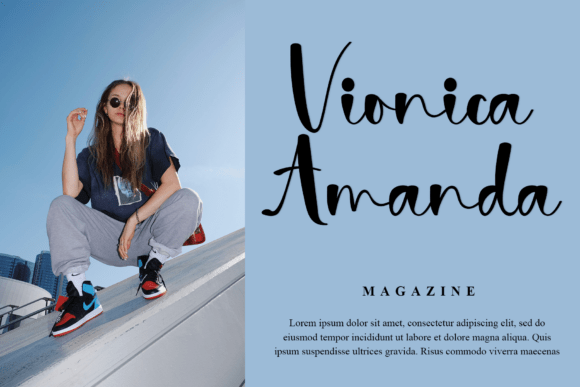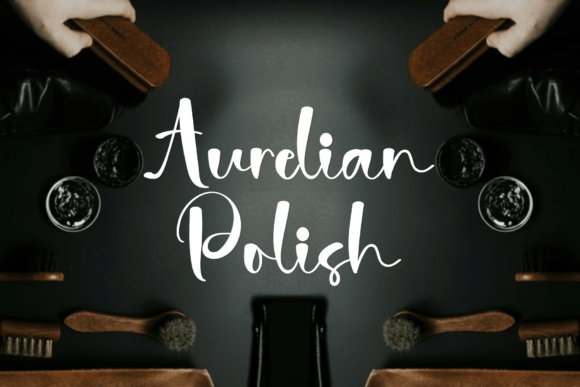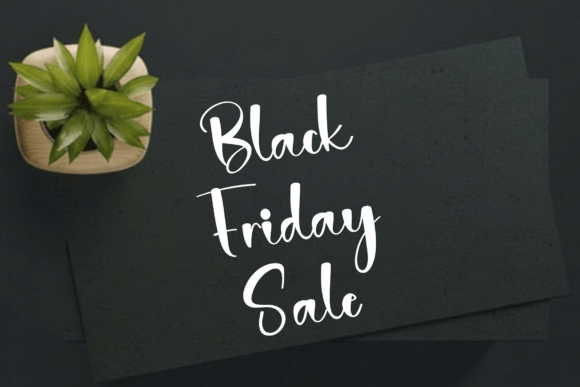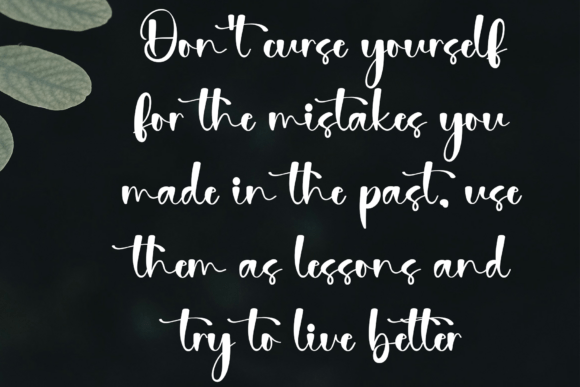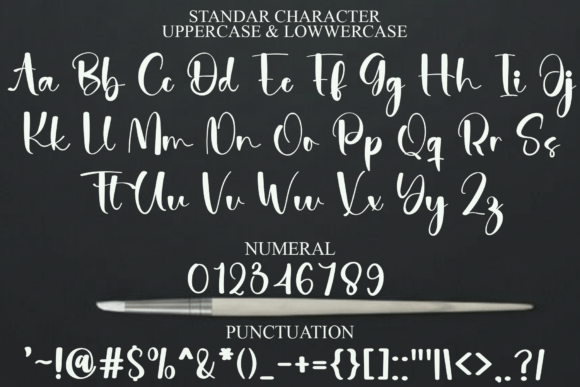
The Magic of the Holiday Season in Type
It’s the time of year when creativity knows no bounds, and the world is full of twinkling lights, festive decorations, and the sound of jingling bells. As designers, we’re often tasked with capturing the essence of this magical time in our work. Whether it’s a holiday card, a gift tag, or a festive advertisement, the right typography can make all the difference.
That’s where the Bethany Radiant Font comes in – a festive and merry typeface that embodies the spirit of the holiday season. With its decorative elements and whimsical flair, this font adds a touch of enchantment to any design. Perfect for holiday-themed projects, the Bethany Radiant Font brings a cheerful and nostalgic ambiance to your words, making it a valuable tool for designers looking to create truly special and memorable designs.
Bethany Radiant Font Key Features
- Font Family: Bethany Radiant is a beautiful, elegant script font that is perfect for various designs.
- Character Set: The font includes a wide range of characters, including uppercase and lowercase letters, numbers, and punctuation marks.
- Unique Characteristics: Bethany Radiant features a unique, hand-drawn design with subtle flourishes and elegant curves, giving it a sophisticated and feminine touch.
Bethany Radiant Font Review
I recently had the chance to work with the Bethany Radiant Font, and I must say, it’s a beautiful addition to any design project. ✨ The font’s elegant and refined feel makes it perfect for high-end brands and luxury products. The subtle curves and rounded edges give it a soft, approachable look that’s hard to resist.
- ✨ The font’s legibility is excellent, making it perfect for body text and long paragraphs.
- ✨ The font’s versatility allows it to be used in a wide range of design projects, from logos to packaging and advertising.
- ✨ The font’s high-end feel makes it perfect for luxury brands and high-end products.
- ⚠️ The font may be too elegant for certain design projects, such as sports or tech brands.
- ⚠️ The font may be too complex for certain design software or systems.
Overall, I’m impressed with the Bethany Radiant Font. It’s a beautiful and elegant font that’s perfect for high-end design projects. While it may not be suitable for every design project, it’s definitely worth considering for those that require a luxurious and refined feel.
Tips for Getting the Most Out of Bethany Radiant Font
For optimal results, use Bethany Radiant Font in combination with bright, pastel colors to create a whimsical and eye-catching design. Experiment with different font sizes and styles to add emphasis and create visual interest. Consider using Bethany Radiant Font for headings and titles, reserving a simpler font for body text.
Bethany Radiant Font is ideal for creating feminine, elegant designs, such as invitations, greeting cards, and wedding stationery. It’s also suitable for branding and marketing materials, such as logos, business cards, and social media graphics.